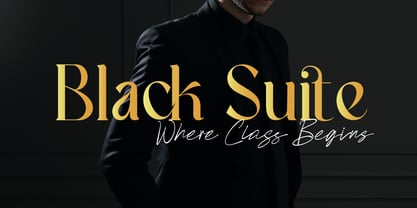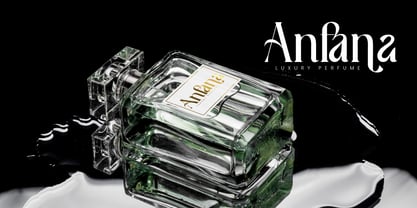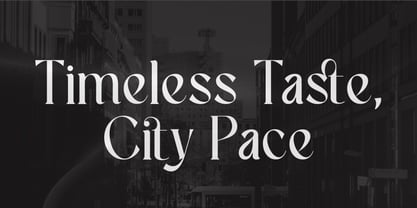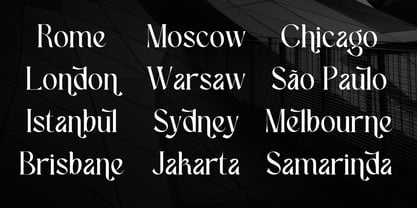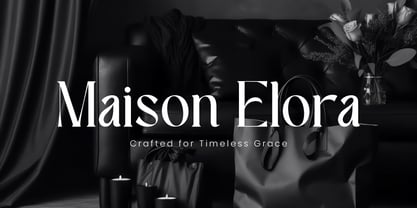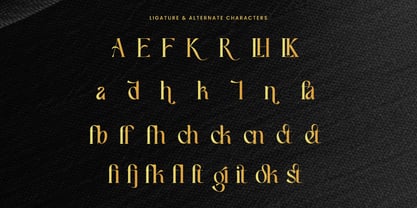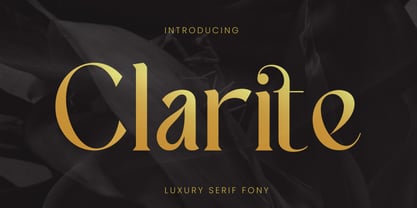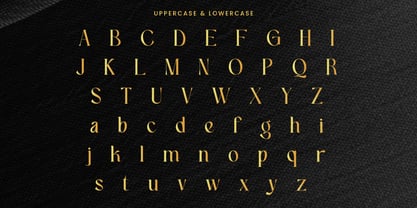
Claritle
by Rvandtype
The Claritle Font Family was designed by Randi Irvan and published by Rvandtype. Claritle contains 2 styles and family package options.
Clarite typeface is an elegant serif font that seamlessly blends flowing curves with crisp, refined edges. Designed to evoke a sense of both modernity and classic charm, Clarite is the epitome of timeless style. Perfect for upscale branding, couture fashion campaigns, polished editorial spreads, and high-impact logo designs, this font lends a graceful presence to any project. With its harmonious contrast and poised structure, Clarite captures the essence of visual refinement—where every letterform speaks of elegance, clarity, and lasting beauty.